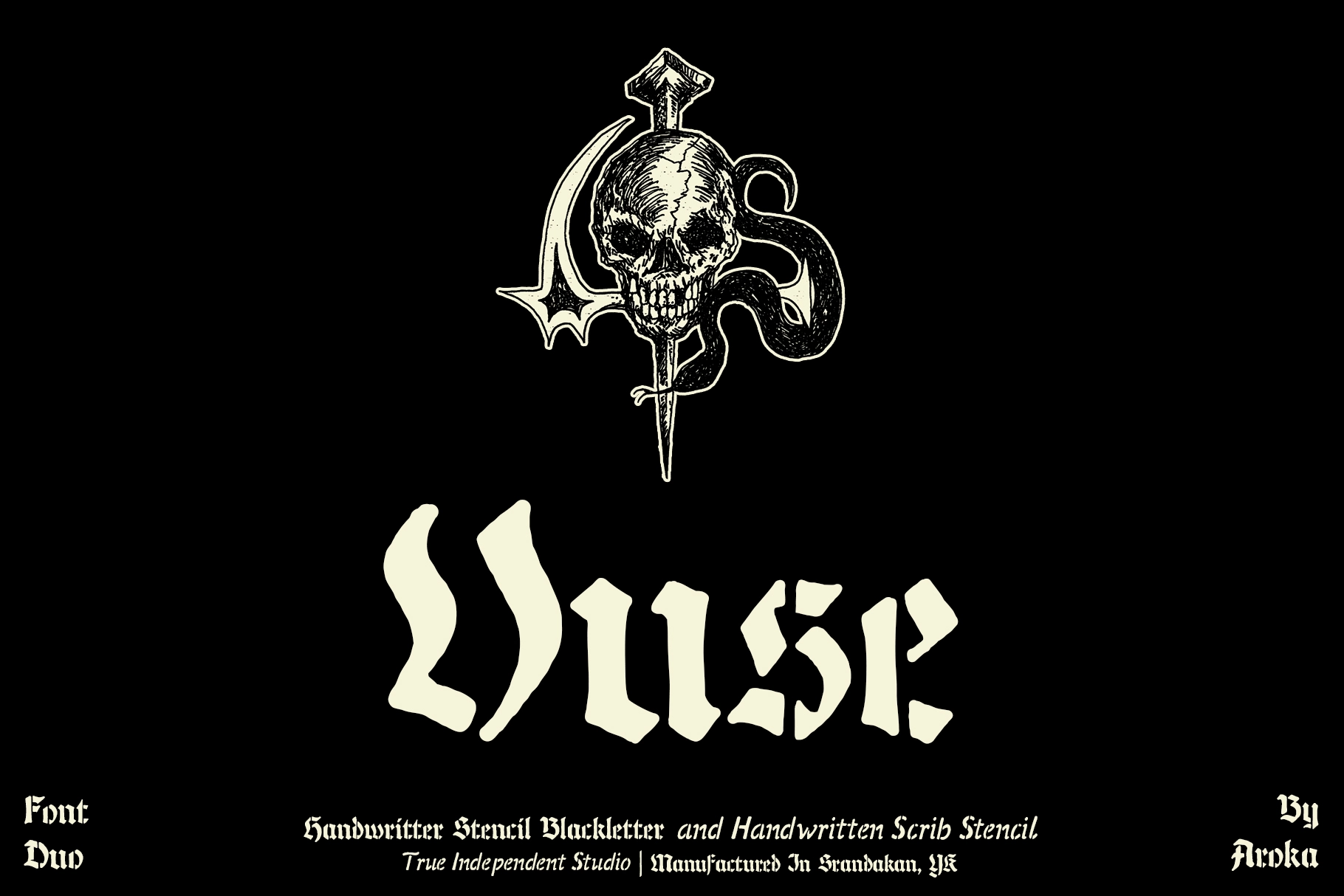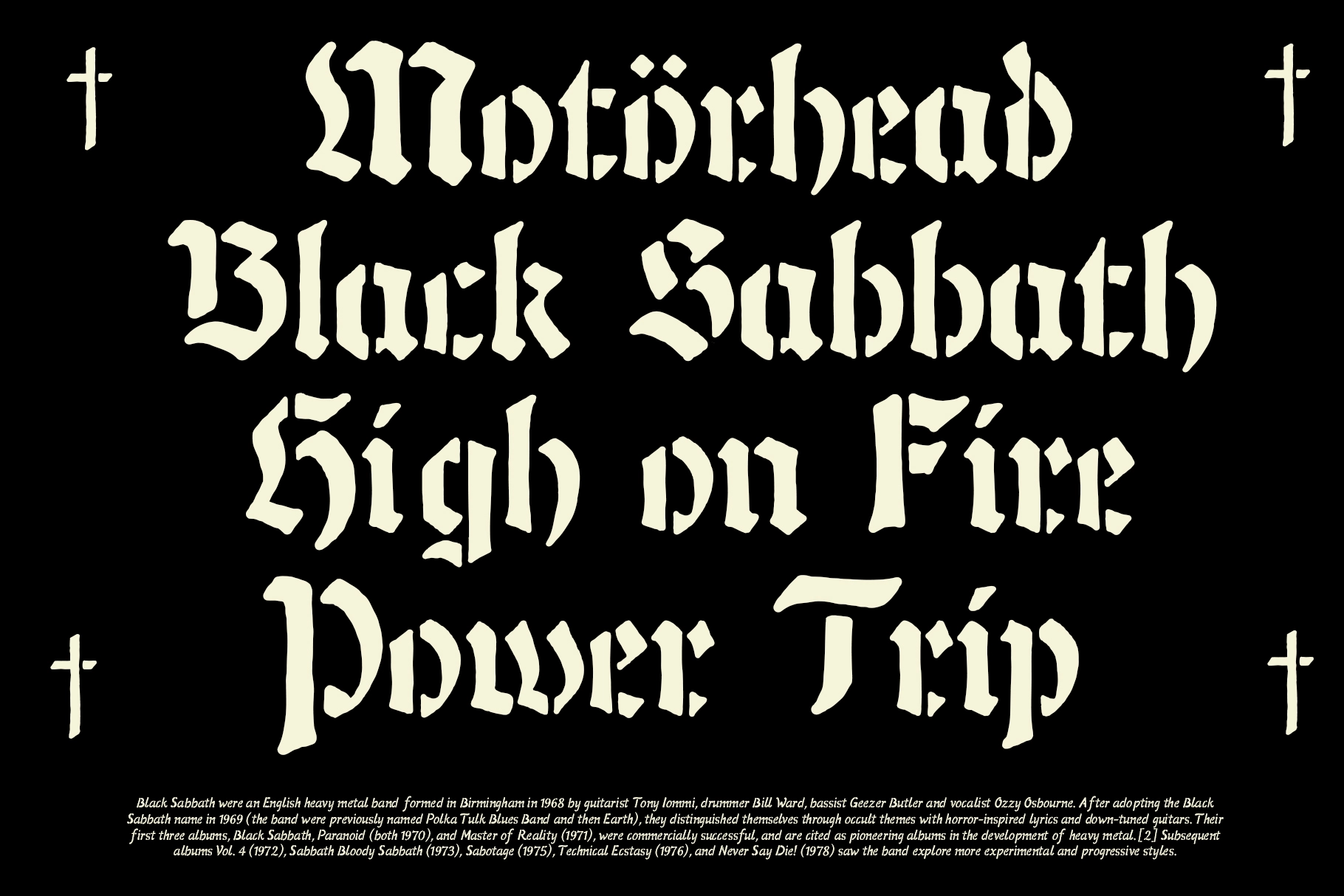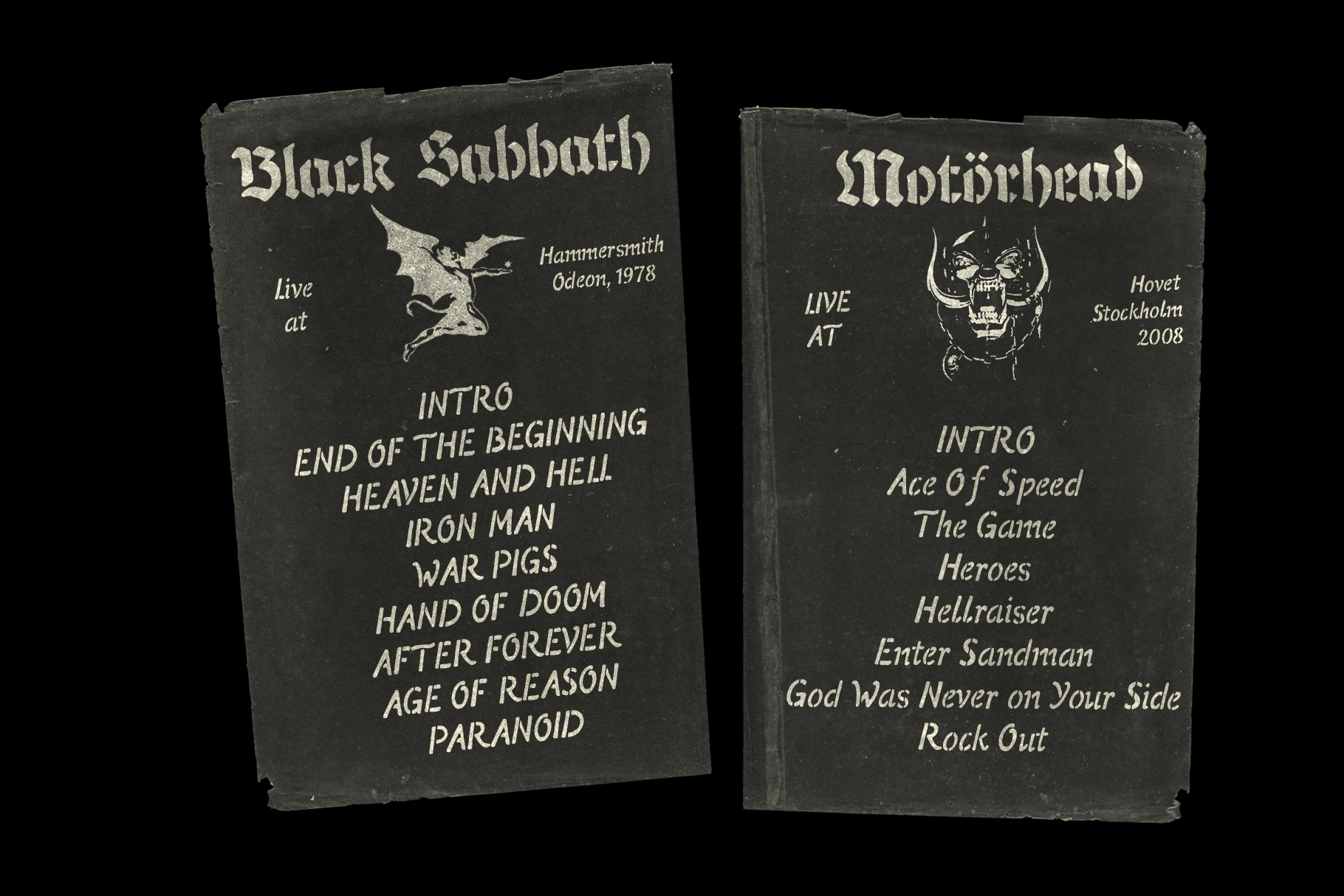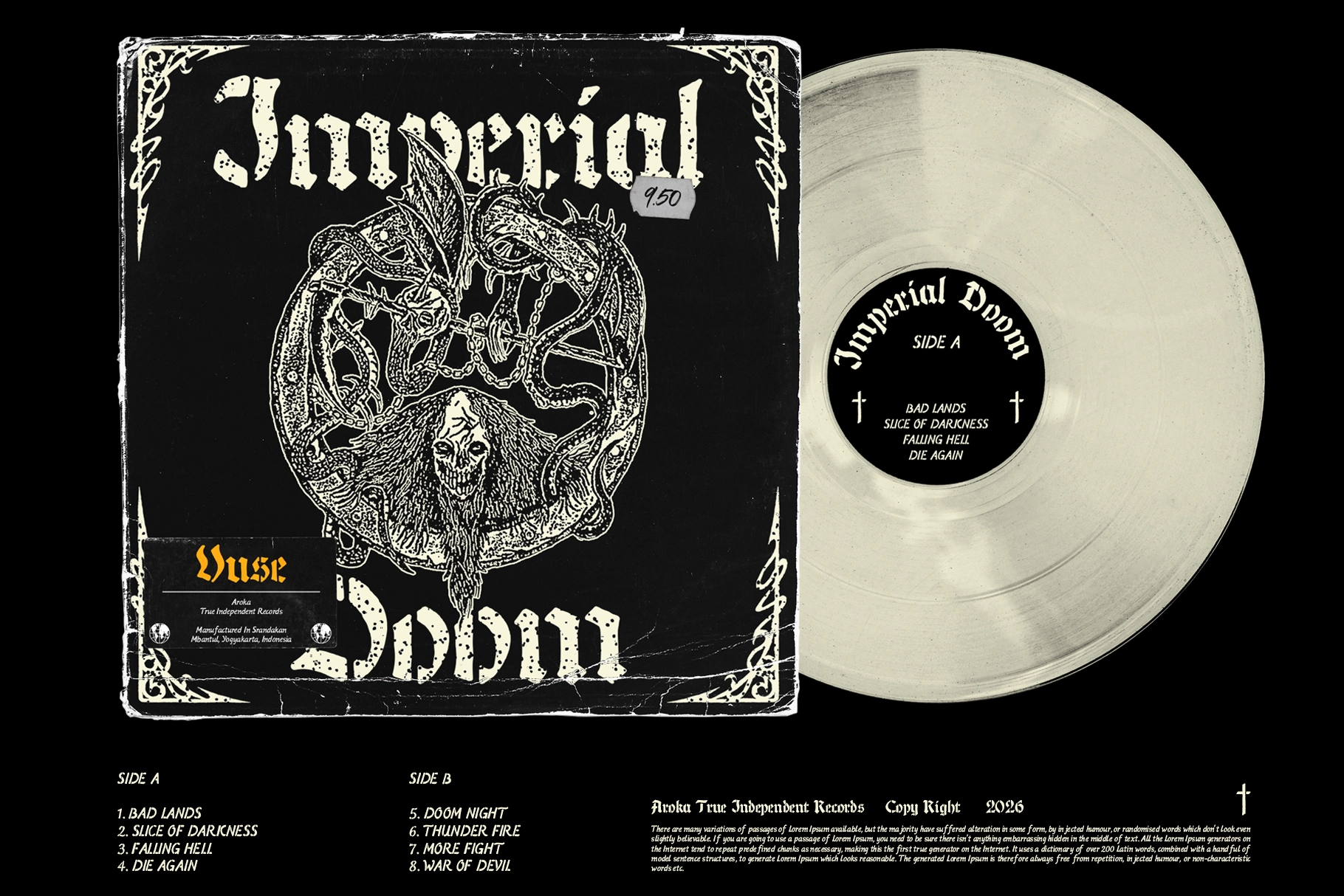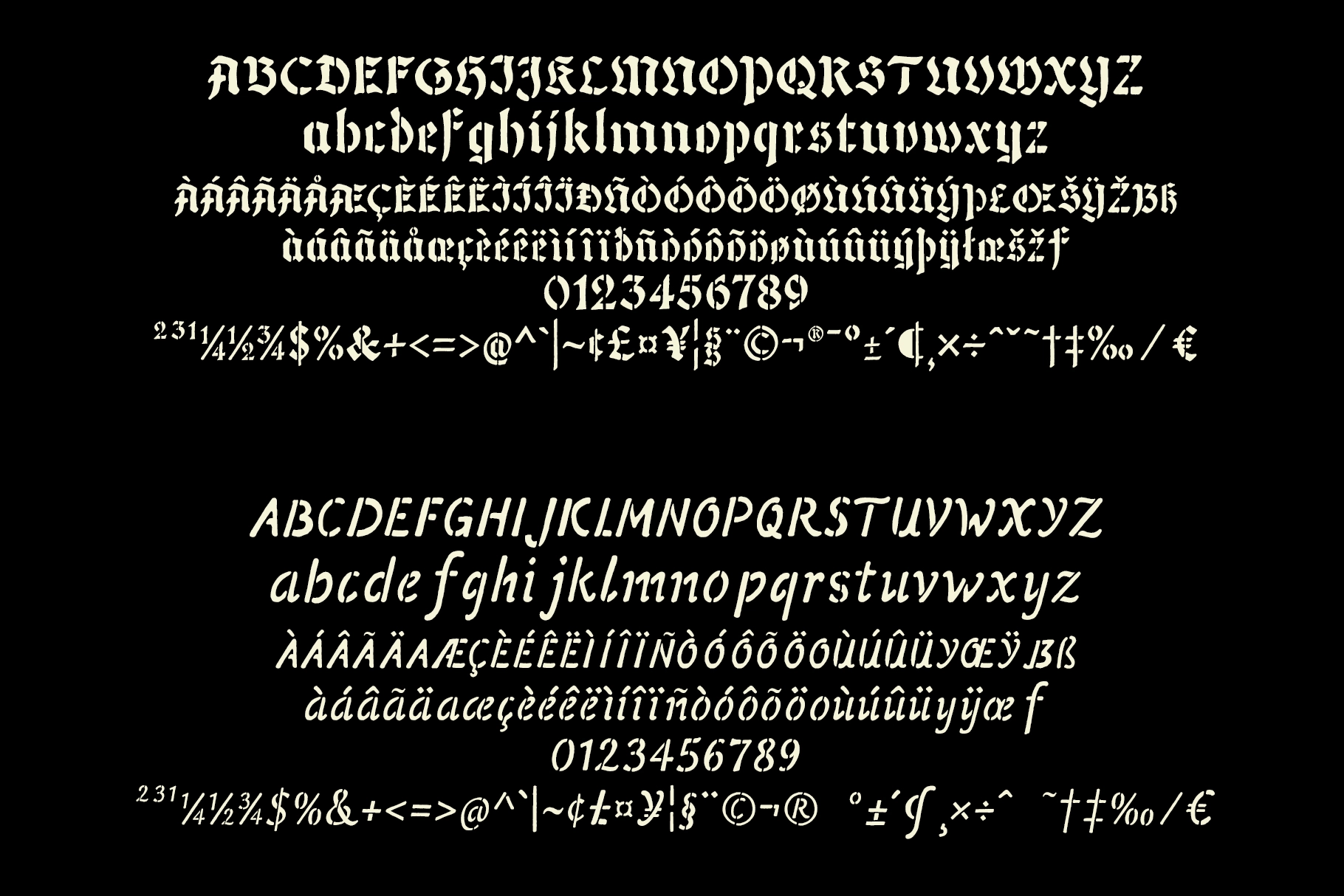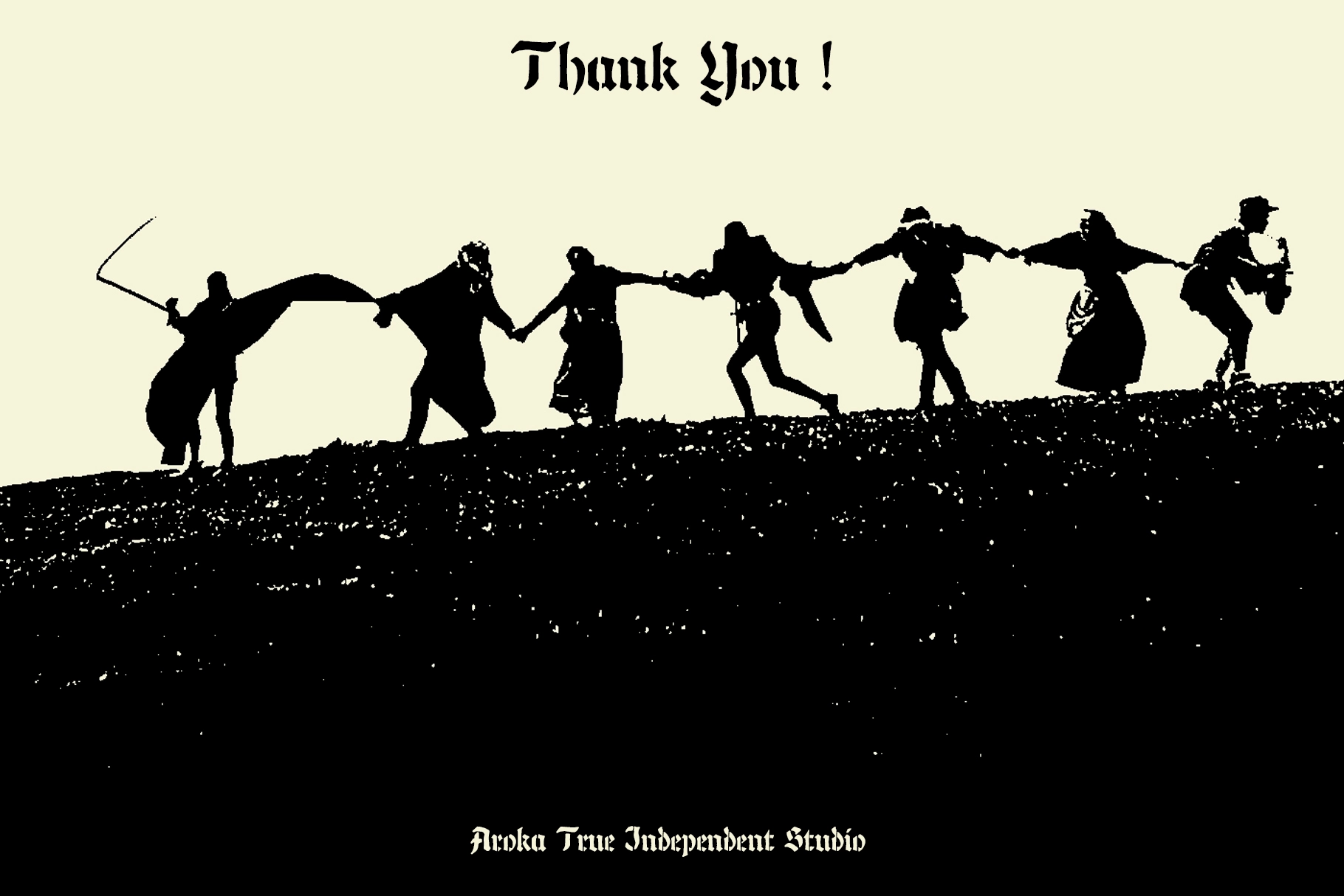
Vuse - Blackletter Stencil Duo Font
VUSE
This gothic font duo carries heavy stage smoke, bootleg tape energy, and sharp-cut lettering made for loud visual work. The main style has a hand-cut blackletter structure with broken stencil gaps, rough curves, and dramatic forms, while the script companion adds a fast handwritten rhythm for notes, credits, and secondary text. It is dark, graphic, and proudly unfriendly to beige branding committees.
Vuse works for band logos, gig posters, album covers, cassette artwork, merch graphics, horror zines, tattoo-inspired layouts, bar flyers, label designs, editorial spreads, packaging, social posts, and more.
- Handwritten Stencil Blackletter
- Handwritten Script Stencil